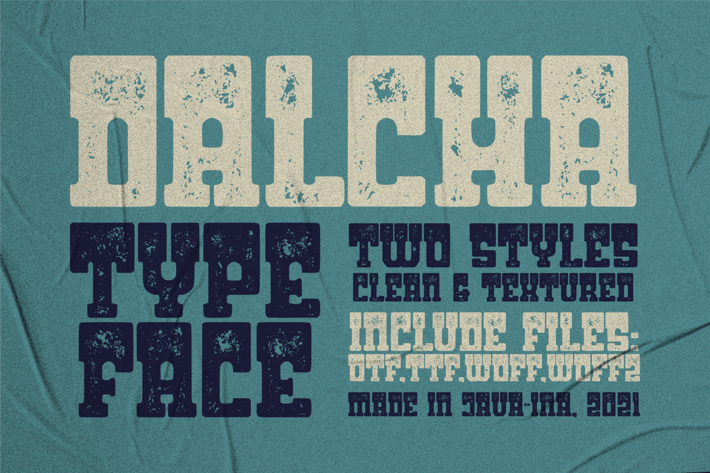
DALCHA TYPEFACE
Dalcha is a vintage-inspired and classic font with a bold top and a small part. This font is available in 2 variations, clean and textured.
All Uppercase
Numeral
Symbol
* Multilingual Support